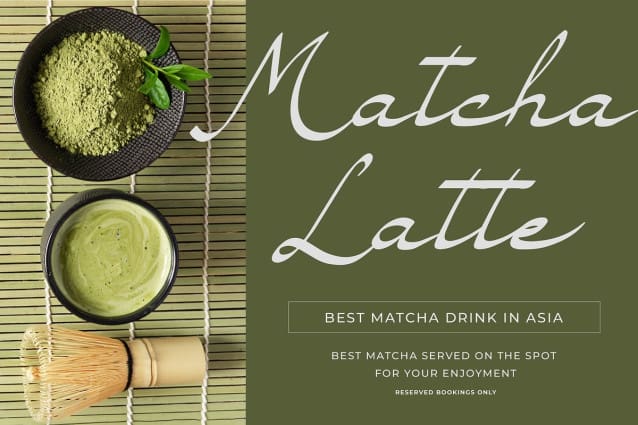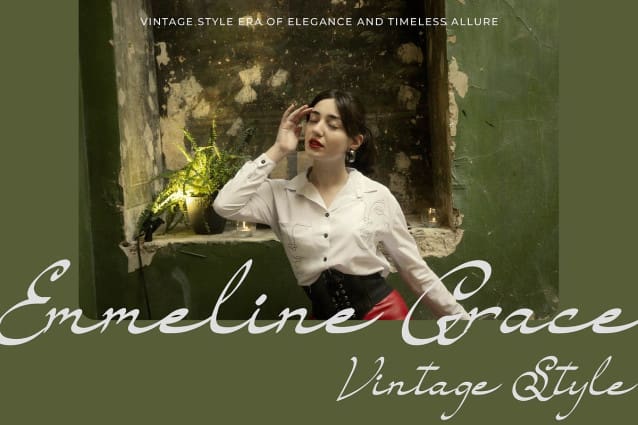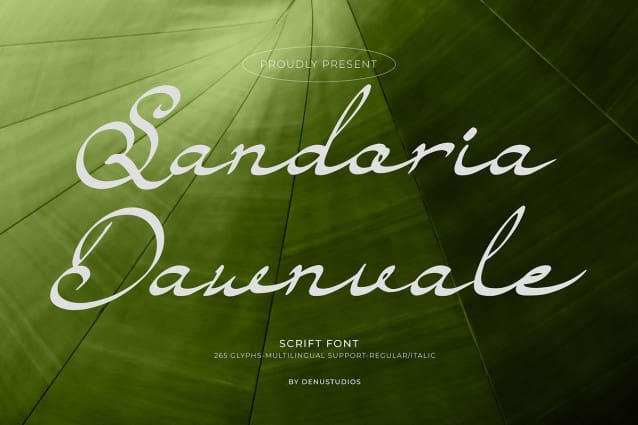
Sandoria Dawnvale Font
Sandoria Dawnvale Font, from Denustudios, is a Luxury Script font, suitable for any projects such as: logos, branding projects, homeware designs, product packaging, mugs, quotes, posters, shopping bags, t-shirts, book covers, name card, invitation cards, greeting cards, label, photography, watermark, special events, and all your other luxury and beautiful projects that need a Luxury Script taste.